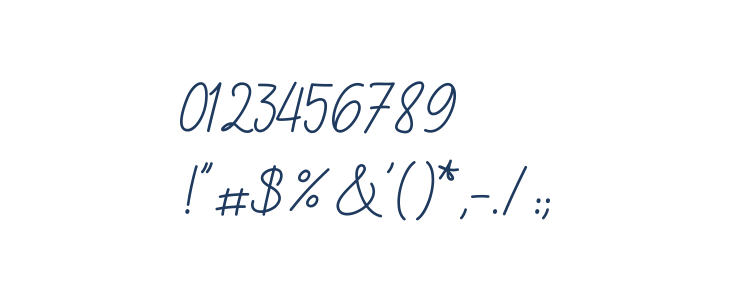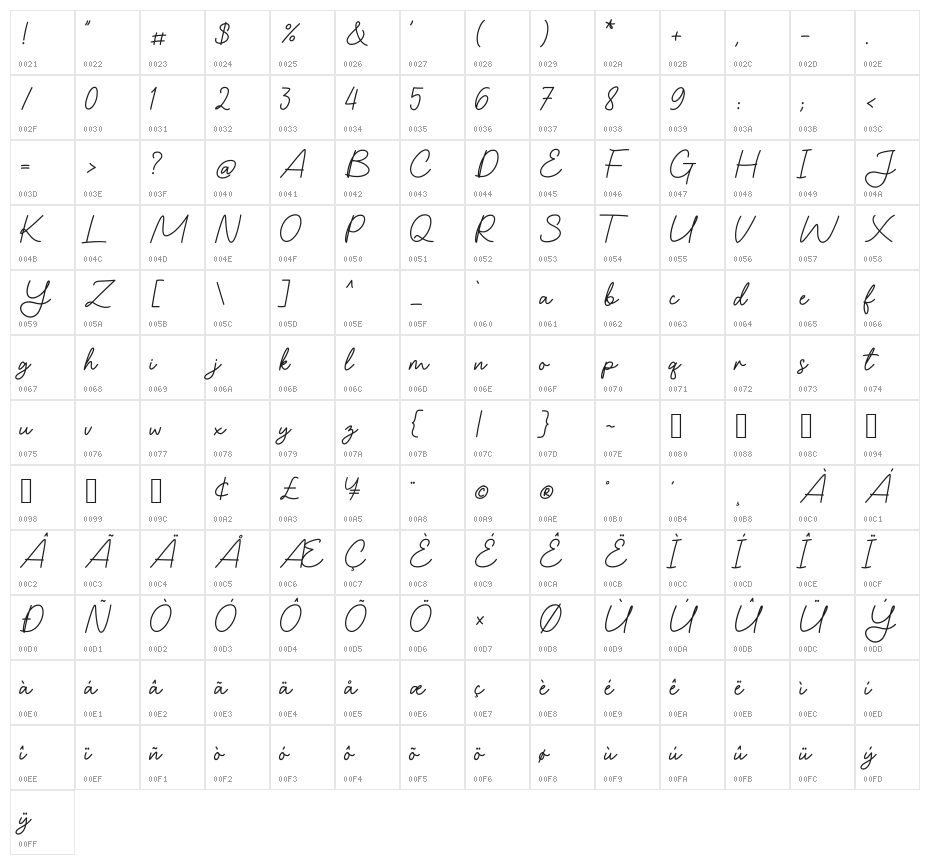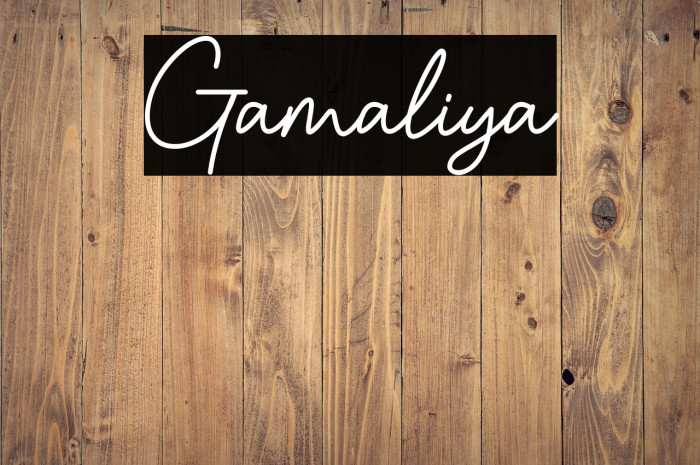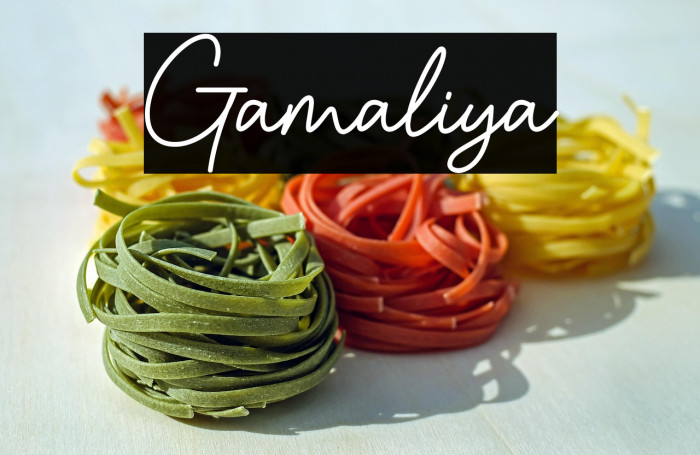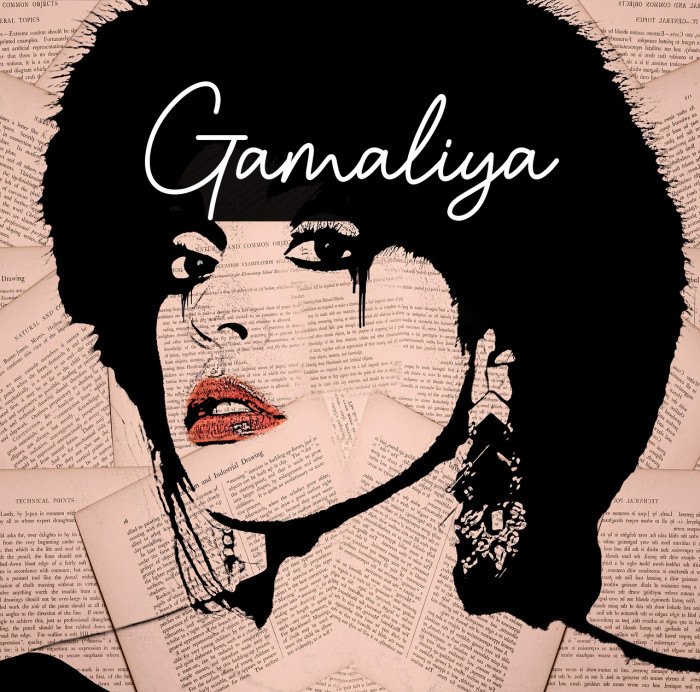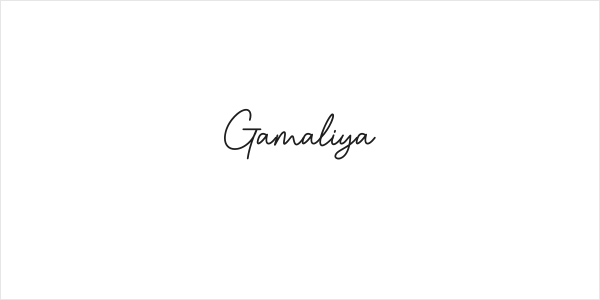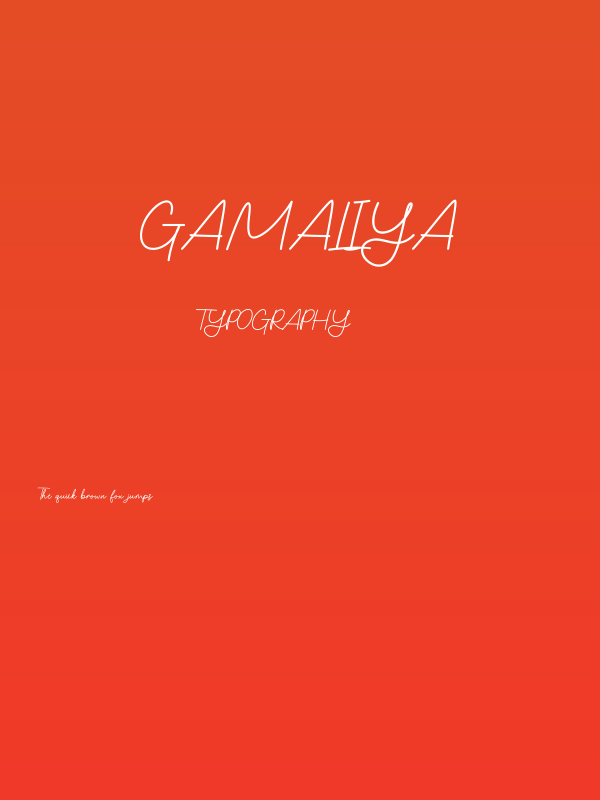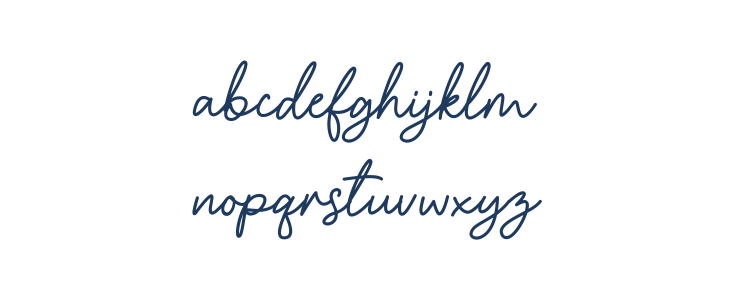
Gamaliya Font
Gamaliya Description
This font features a fluid, handwritten style that exudes elegance and sophistication. The uppercase letters are tall and slender, with a slight slant that adds a dynamic feel. The lowercase letters are more rounded and connected, enhancing the script-like appearance. Numerals are consistent with the overall style, maintaining the same fluidity and grace. Special characters are well-integrated, ensuring a cohesive look across all glyphs. The font's overall design is both modern and timeless, making it versatile for various applications.